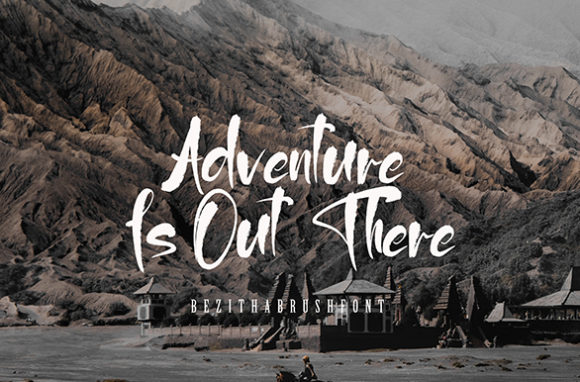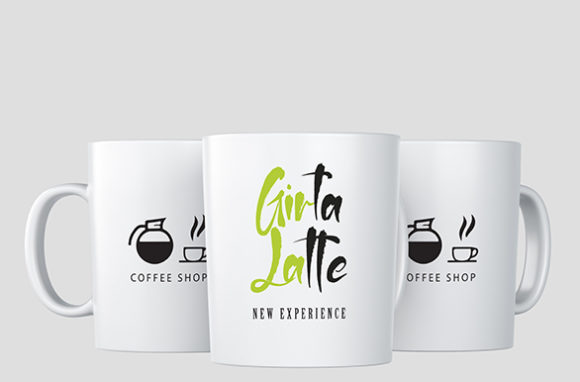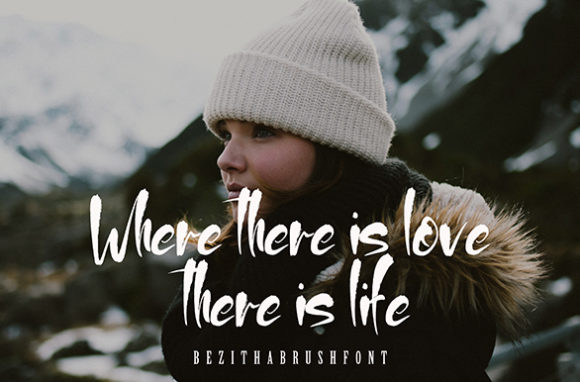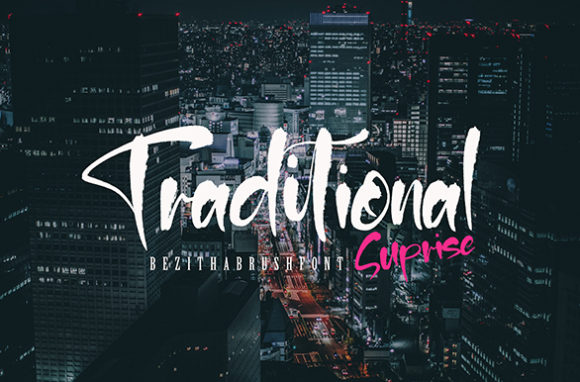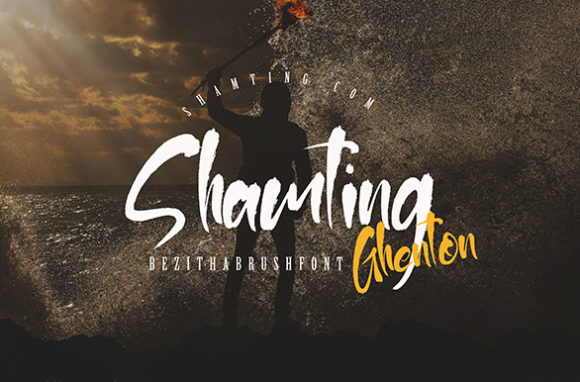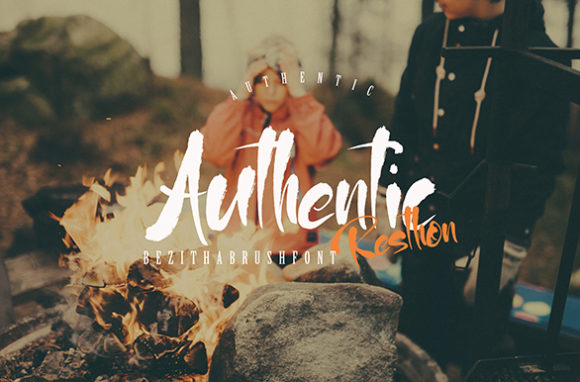
Bezitha Glare Font
About Bezitha Glare Font
Bezitha Glare is an authentic and rough script, with an adventurous feel. It will easily inspire new design ideas!